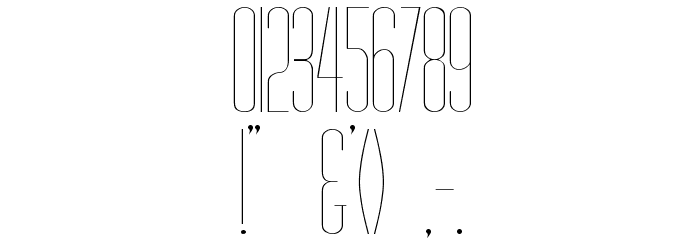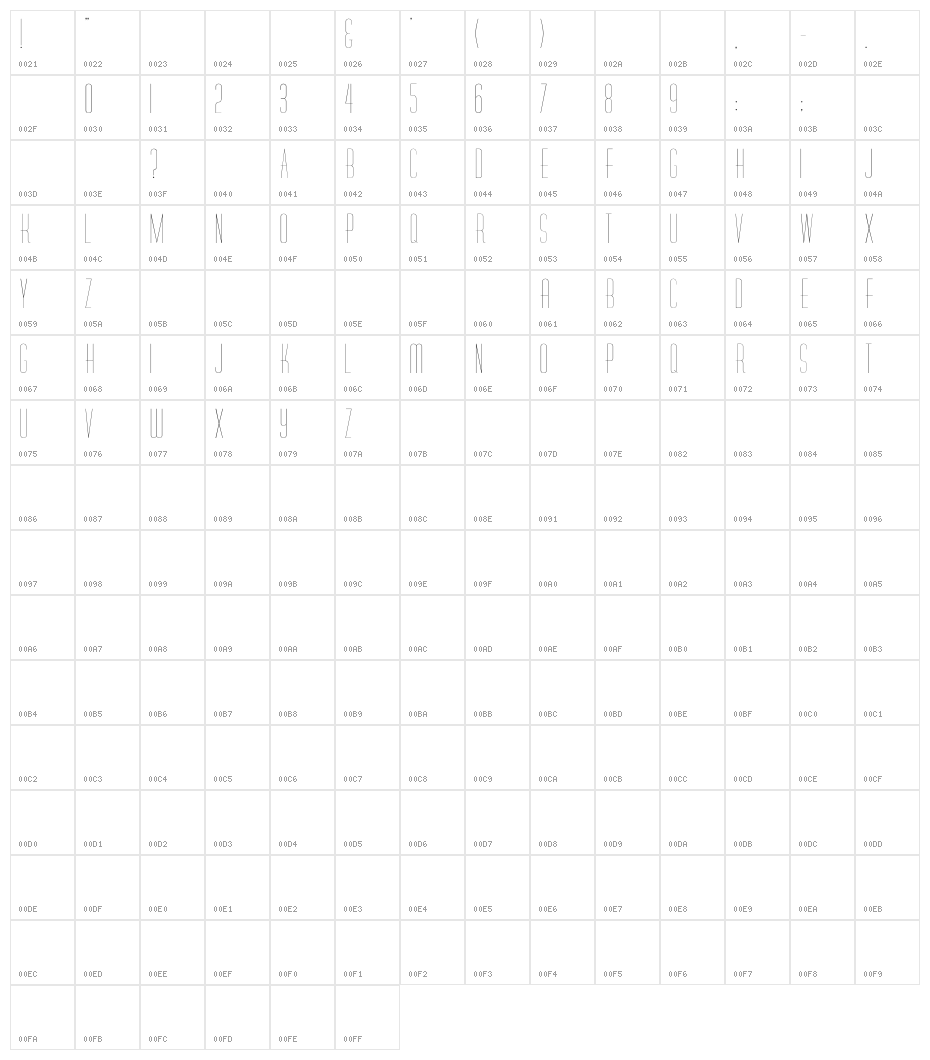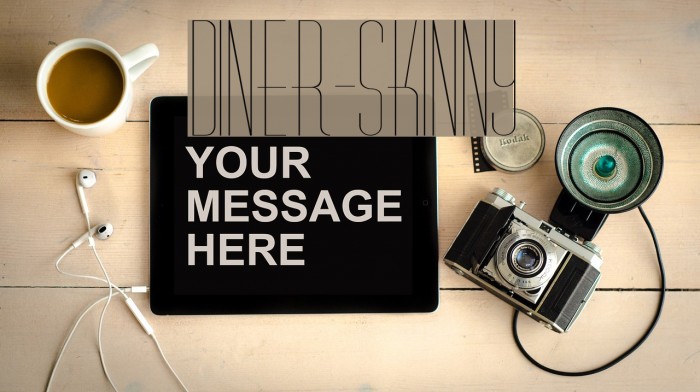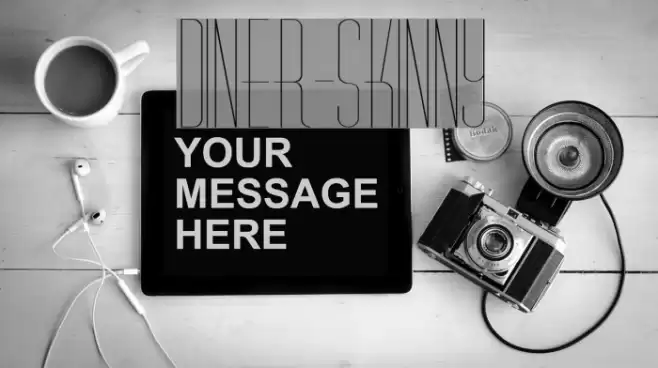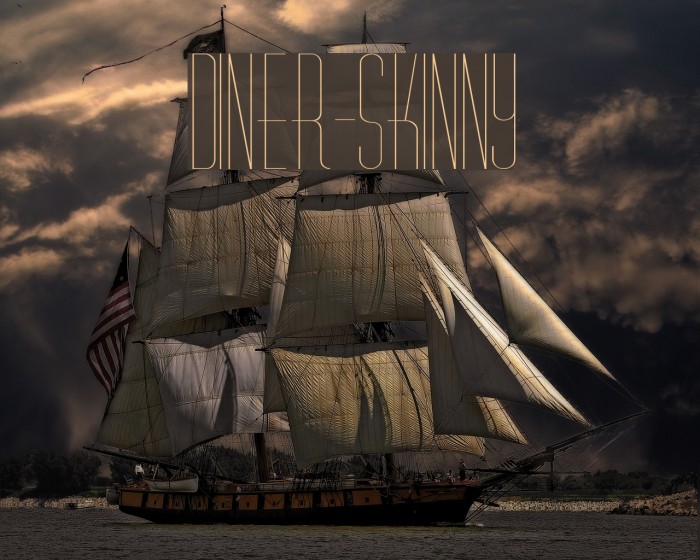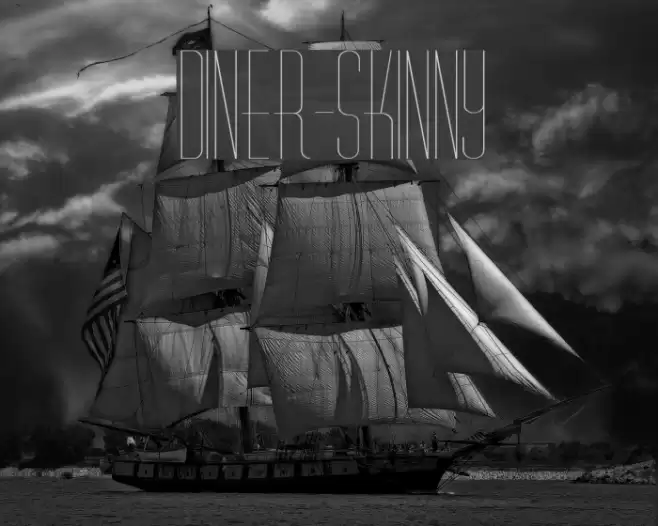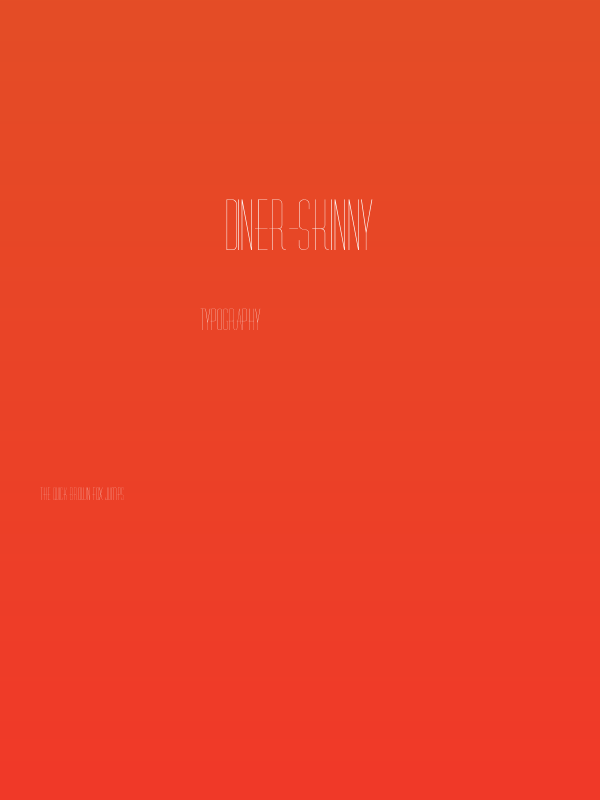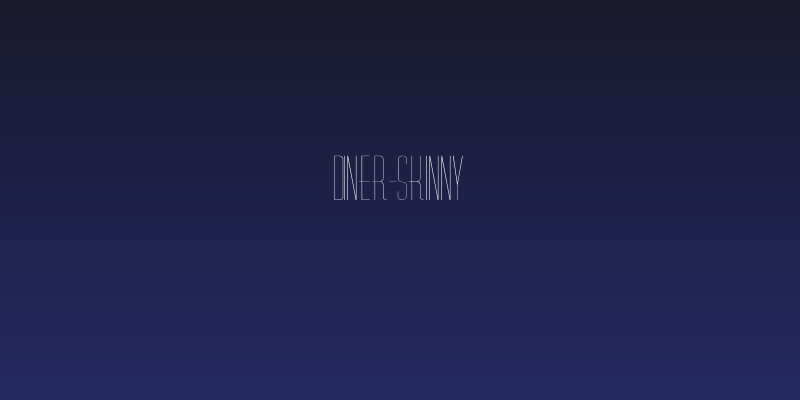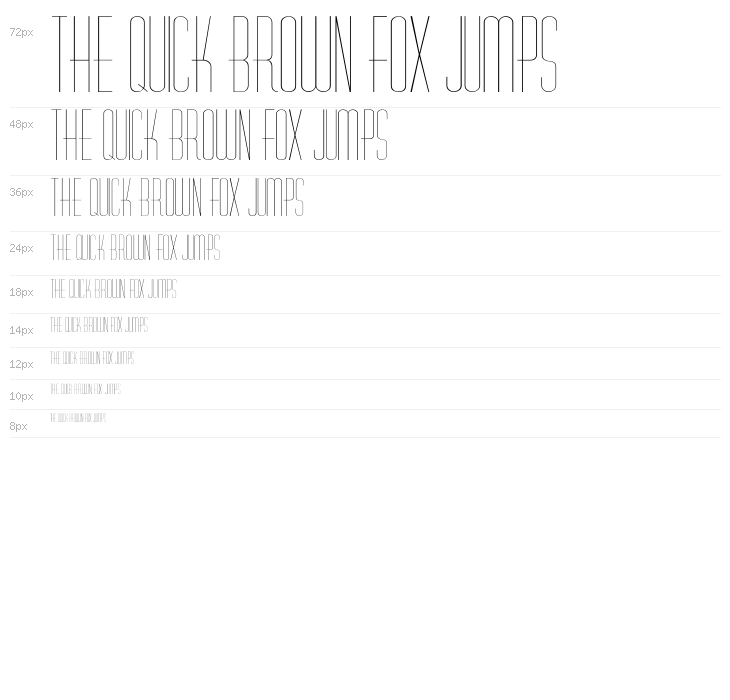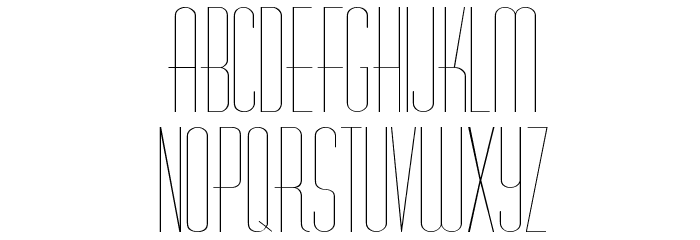
Diner-Skinny Font
Diner-Skinny Description
This font features an ultra-thin, elongated design with a modern and minimalist aesthetic. The characters are tall and narrow, creating a sleek and sophisticated look. The uppercase and lowercase letters maintain a consistent height, contributing to a uniform appearance. The numerals and special characters follow the same slender style, enhancing the font's cohesive feel. The strokes are consistently thin, with minimal variation in thickness, giving it a low contrast. This font is ideal for projects that require a contemporary and elegant touch, such as fashion branding, high-end product packaging, or modern editorial layouts.
| Proposed Projects | Fashion branding, high-end product packaging, modern editorial layouts. |